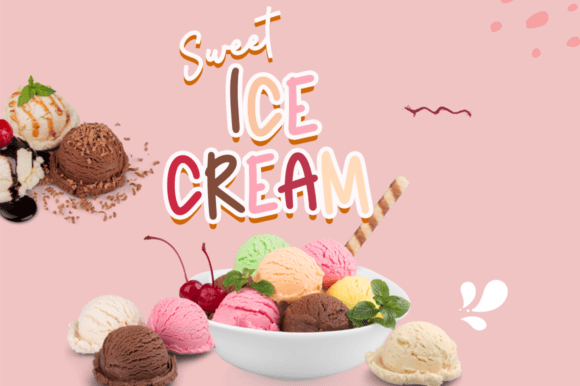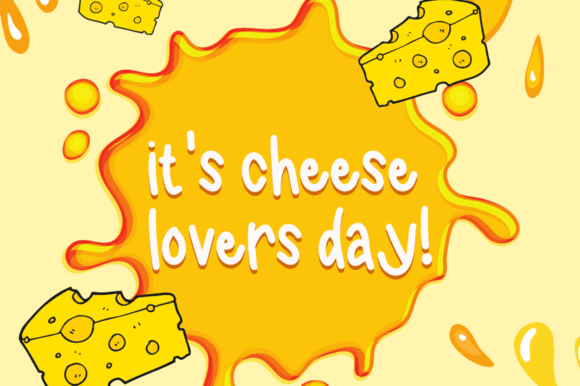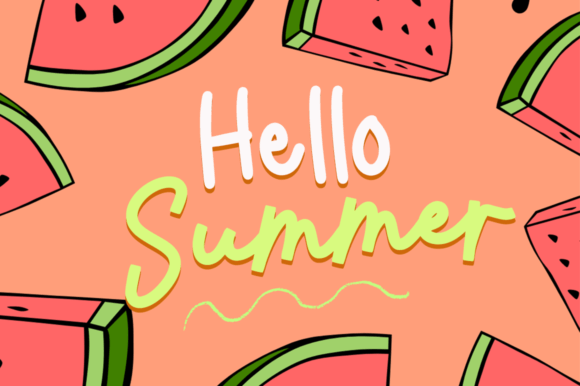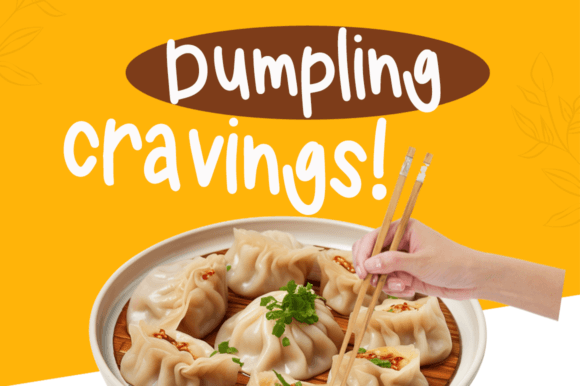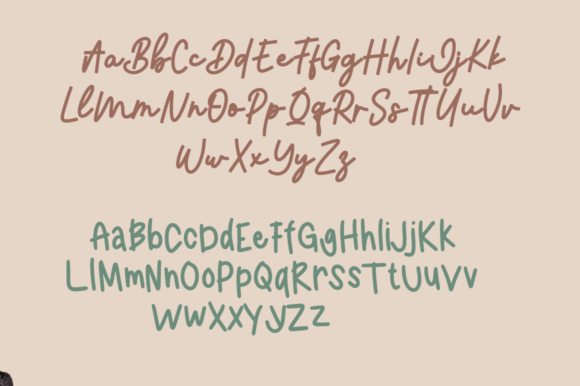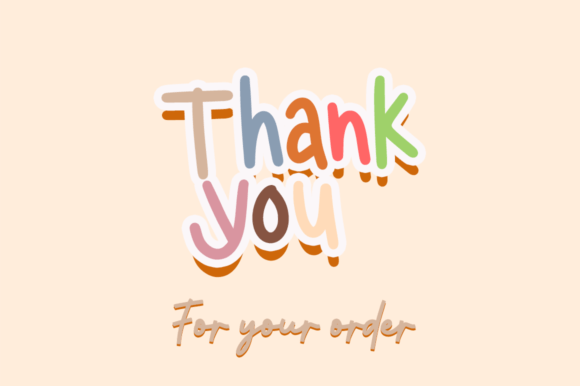
Unleash Your Creativity with the Creamy Smoothie Font
Have you ever stumbled upon a font that makes you feel like a kid in a candy store? For me, that moment was when I discovered the Creamy Smoothie Font – a delightful pair of Handwriting fonts that instantly sparked my creativity. The smooth, flowing lines and elegant curves of this font are an absolute dream to work with, making it an ideal choice for a wide range of applications.
The Creamy Smoothie Font is more than just a stylish addition to your designs – it’s a versatile tool that can elevate your branding, packaging, and overall visual identity. Whether you’re a seasoned designer or just starting out, this font is sure to become a trusted companion in your creative journey.
Creamy Smoothie Font Key Features
- Font Family: Creamy Smoothie
- Character Count: 750+ glyphs, including Latin, Cyrillic, and Greek alphabets
- Size: Available in 4 font sizes: 14pt, 18pt, 24pt, and 36pt
- Resolution: Optimized for high-resolution displays (Retina-ready)
- Unique Characteristics: Hand-drawn design, elegant and smooth texture, perfect for branding and food-related designs
Designer Review: Creamy Smoothie Font
Overall, I think the Creamy Smoothie Font has some great qualities, but also some areas for improvement. Let’s dive in.
- Smooth and elegant letterforms: The font’s smooth curves and flowing lines make it perfect for food and beverage branding.
- High legibility: The font is easy to read, even at smaller sizes, making it suitable for packaging, labels, and menus.
- Unique feel: The Creamy Smoothie Font has a distinct, modern look that sets it apart from other sans-serif fonts.
- Limited font weights: The font only comes in a few weights, which might limit its versatility for different design applications.
- Not ideal for body text: While the font works well for headlines and titles, it may not be the best choice for large blocks of body text.
- Lack of italics: The font does not include italics, which can be a drawback for designs that require italic text.
Overall, the Creamy Smoothie Font is a solid choice for designs that require a modern, elegant look. However, its limitations should be considered before committing to it for a project.
The Creamy Smoothie Font is perfect for creating eye-catching headings and titles. To get the most out of it, use it sparingly to draw attention to important information.
The Creamy Smoothie Font is ideal for:
- Health and wellness marketing
- Home decor and lifestyle design
Alternatives to Creamy Smoothie Font
Ostrich Sans is a modern sans-serif font that offers a clean and elegant look. It is perfect for use in digital design, particularly for websites and apps. Ostrich Sans is more geometric and sleek compared to Creamy Smoothie Font, which makes it ideal for modern and tech-related projects.
Great Vibes is a script font that offers a unique and stylish look. It is perfect for use in creative and artistic projects, such as posters, flyers, and social media graphics. Great Vibes is more cursive and expressive compared to Creamy Smoothie Font, which makes it ideal for projects that require a touch of personality.
Montserrat is a sans-serif font that offers a strong and modern look. It is perfect for use in urban and industrial-themed projects, such as logos, brochures, and business cards. Montserrat is more geometric and industrial compared to Creamy Smoothie Font, which makes it ideal for projects that require a strong and edgy feel.
Playfair Display is an elegant and luxurious script font that offers a sophisticated look. It is perfect for use in high-end and premium projects, such as luxury brands, wedding invitations, and fine art prints. Playfair Display is more ornate and refined compared to Creamy Smoothie Font, which makes it ideal for projects that require a touch of elegance and sophistication.